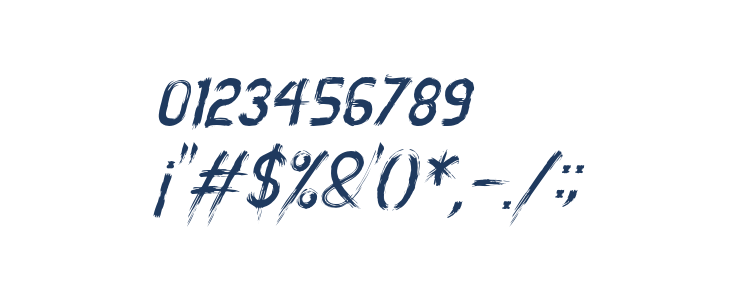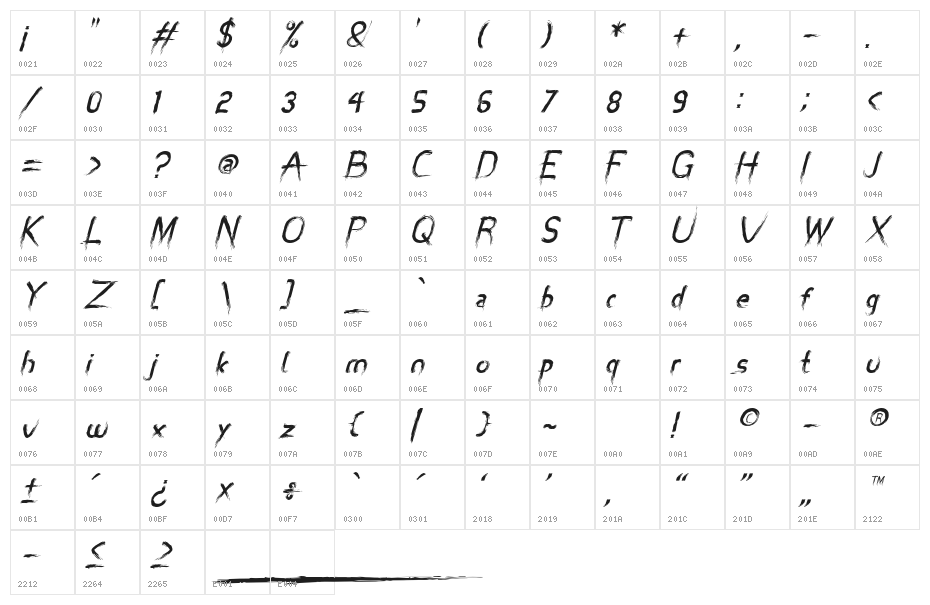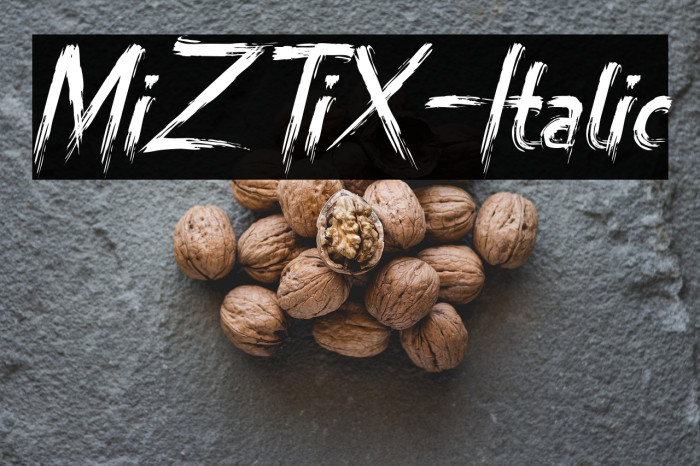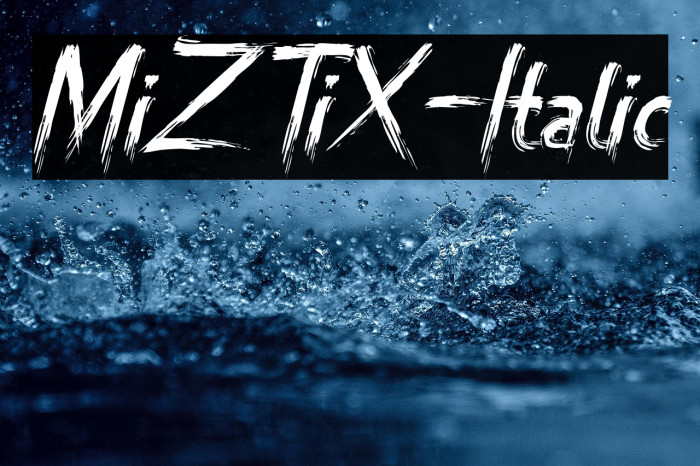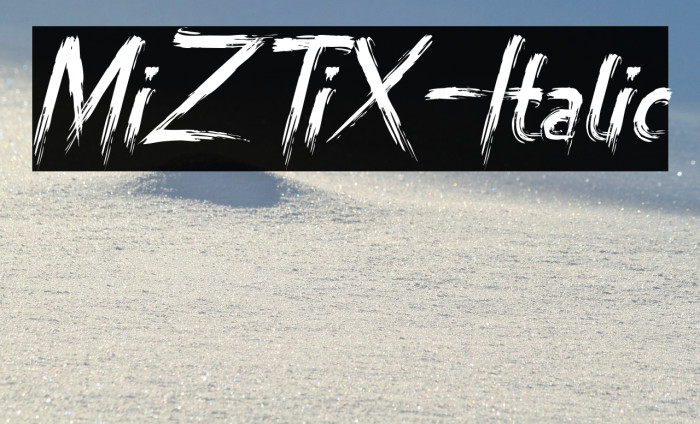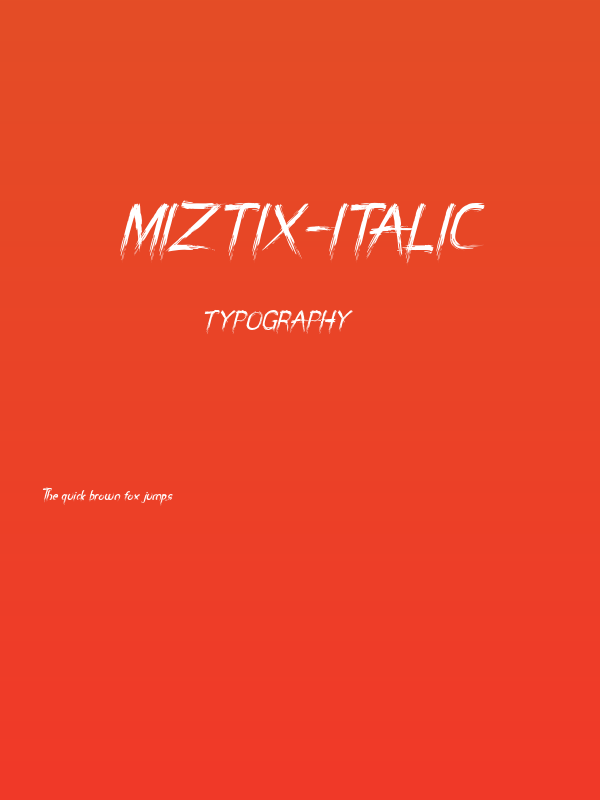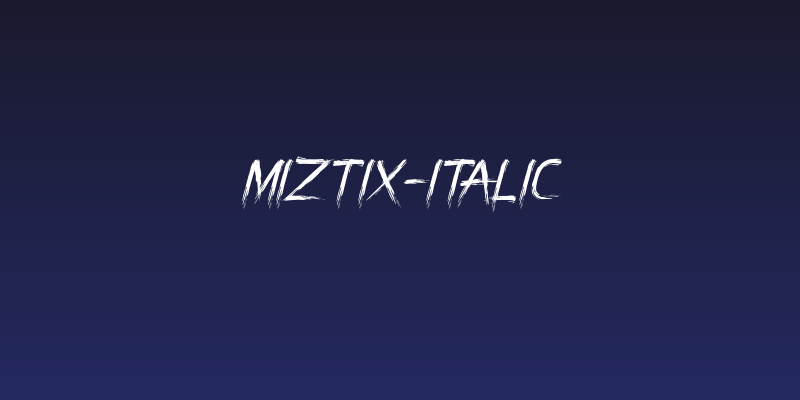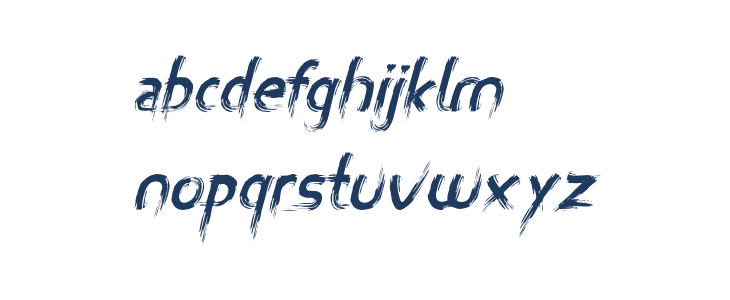
MiZTiX-Italic Font
MiZTiX-Italic Description
This font features a dynamic and edgy style, characterized by its brush-like strokes and energetic appearance. The letters have a rough, textured look, giving them a sense of movement and intensity. The uppercase and lowercase letters maintain a consistent style, with sharp angles and irregular edges that create a sense of urgency and excitement. The numbers and special characters follow the same design principles, ensuring a cohesive look across all glyphs. This font is ideal for projects that require a bold and impactful visual presence.
| Proposed Projects | Ideal for music album covers, event posters, urban-themed designs, and dynamic branding projects. |